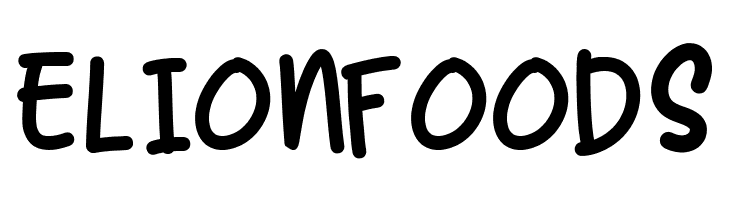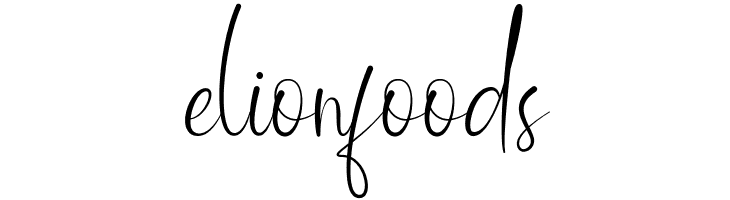
A casual, elegant handwritten script with fluid, interconnected letters.
An elegant, flowing script font with thin, elongated strokes and graceful curves.
A bold, dotted font with a pixelated, digital appearance.
A bold, distressed font with a grunge-like, graffiti-inspired style.
A dynamic and elegant script font with flowing, slender letterforms.
A bold, playful font with thick, rounded strokes and a bubbly appearance.
A bold, playful handwritten font with rounded, irregular letterforms.
A dynamic, modern font with elongated, slanted characters and a bold presence.
A lively handwritten font with fluid strokes and a casual elegance.